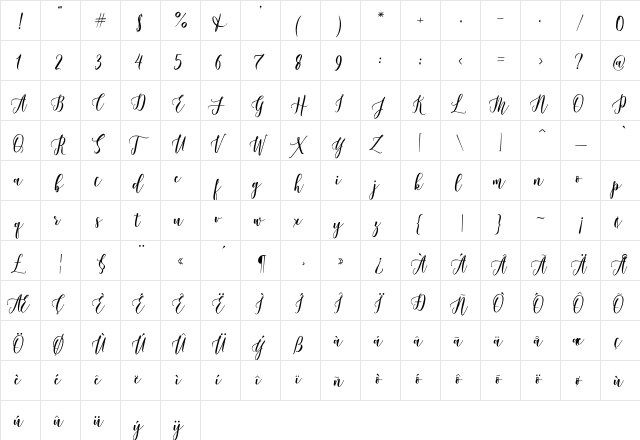
Castilla Script Regular
| Foundry | Joel Maker Studio |
| Designer | Joel Maker Studio |
Design Context for Castilla Script Typeface
Castilla Script flows with the natural rhythm of handwritten lettering, making it ideal for designs that call for warmth and personal expression.
Font Pairing: Combine Castilla Script with a simple geometric sans for maximum contrast — the tension between flowing curves and clean structure is a classic typographic pairing.